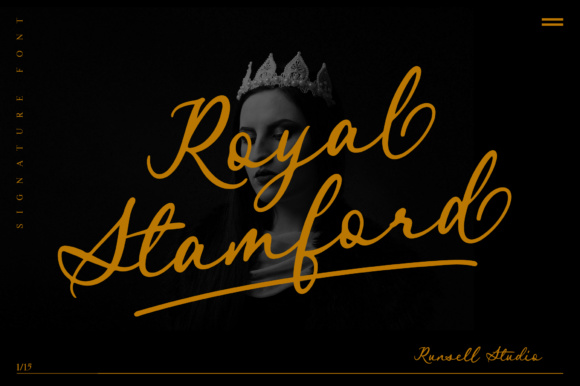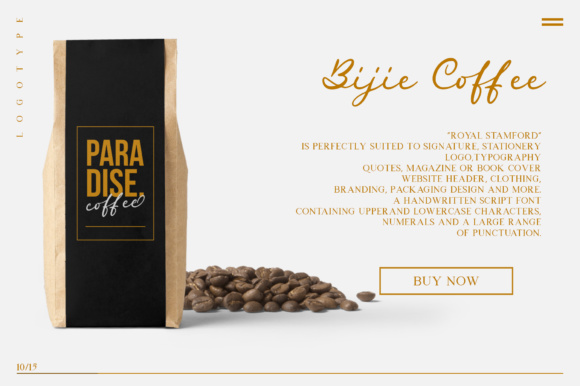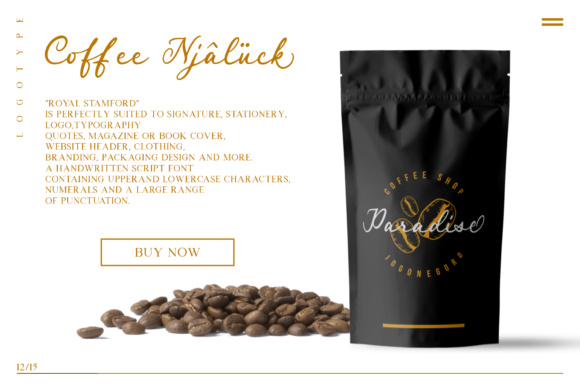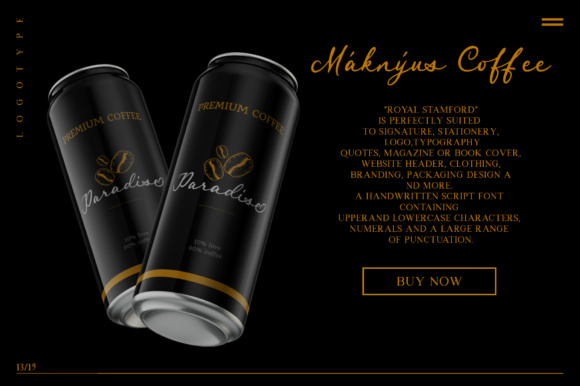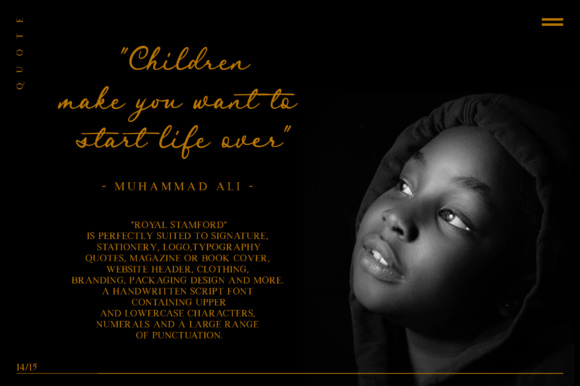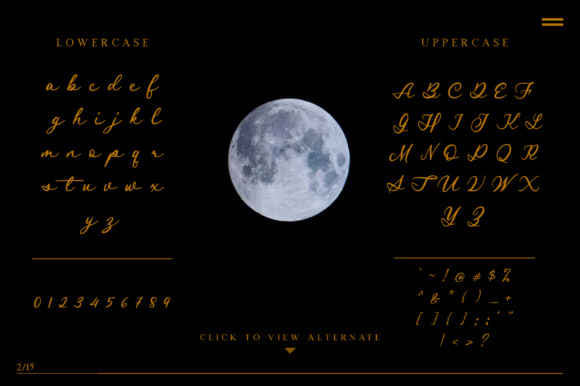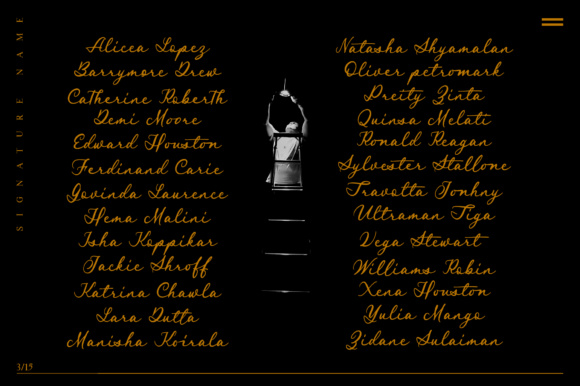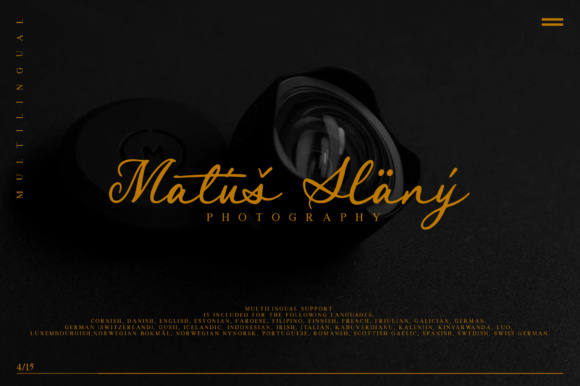
Royal Stamford Font
About Royal Stamford Font
The Royal Stamford is a classy, handwriting font with a distinctive curve.
The Royal Stamford is perfect for signatures, stationery, logos, typography quotes, magazine or book covers, and any other design that needs an authentic style.